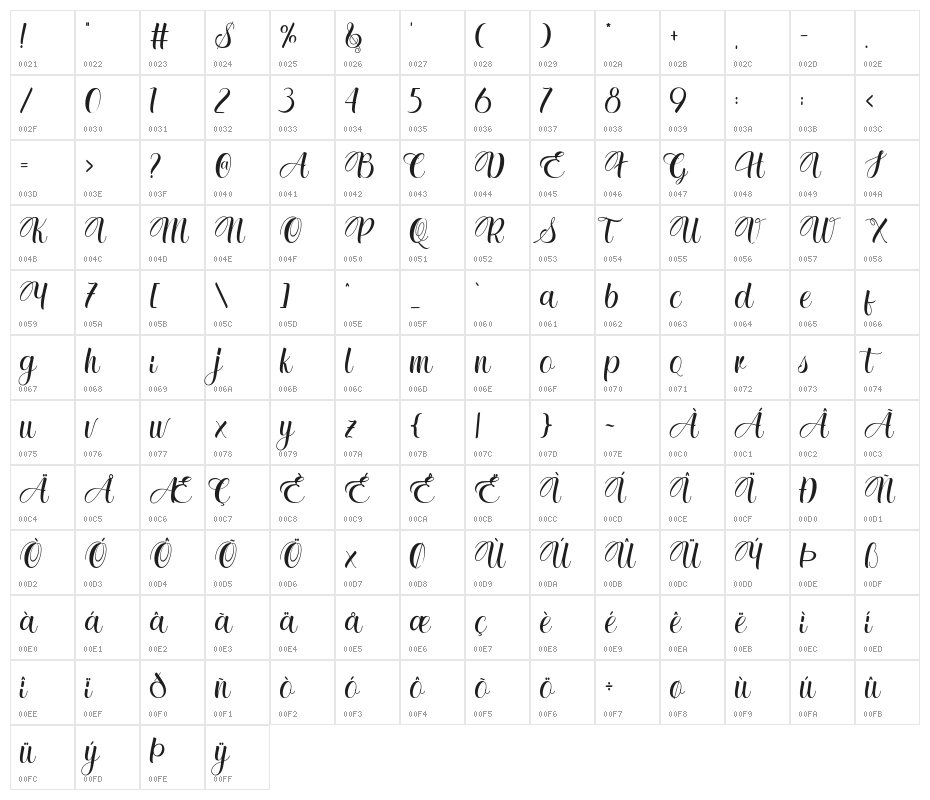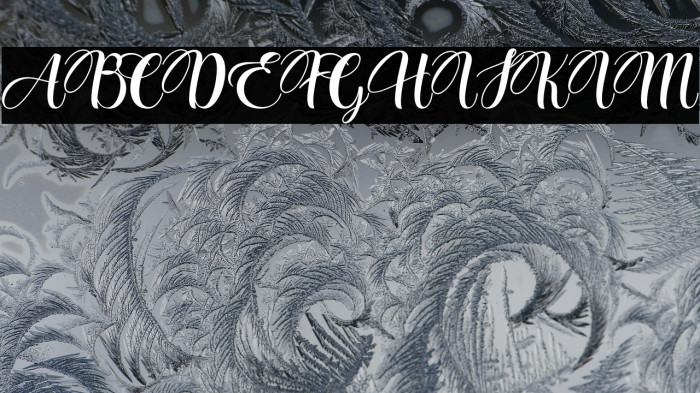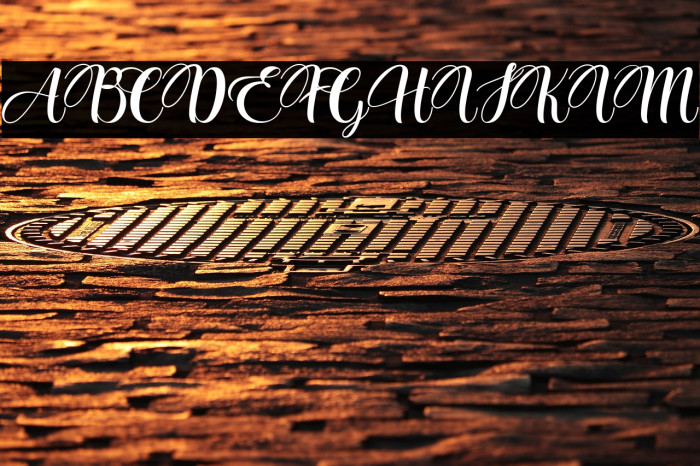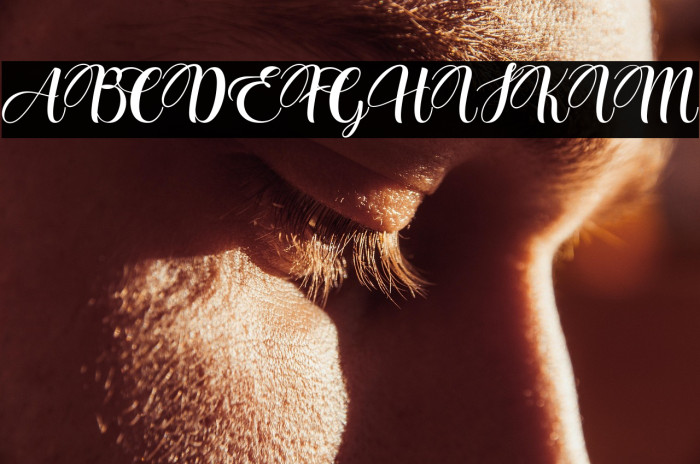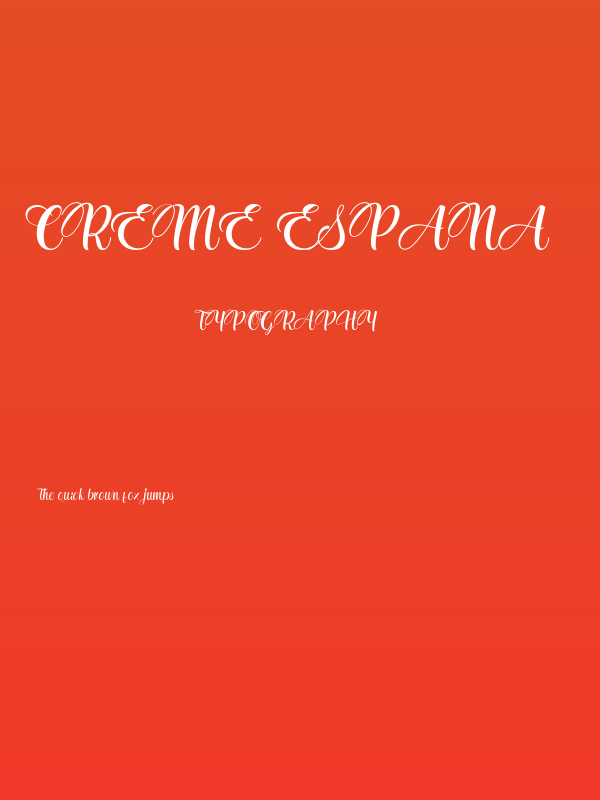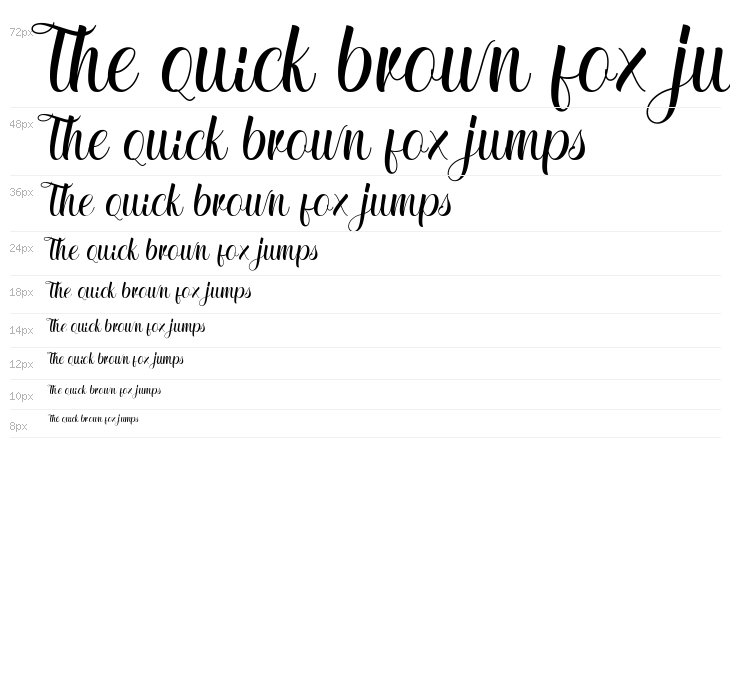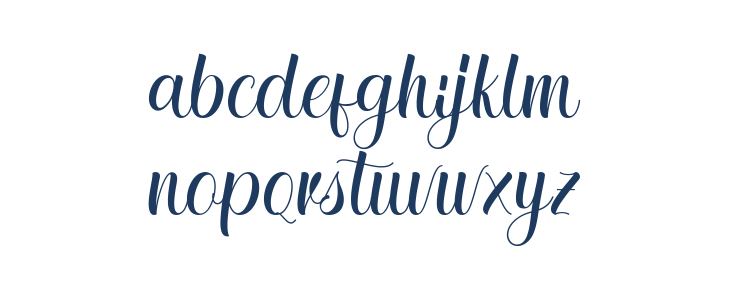
Creme Espana Font
Creme Espana Description
This elegant script font features a flowing, cursive style with intricate loops and swashes that give it a sophisticated and artistic appearance. The uppercase letters are particularly ornate, with flourishes that extend beyond the baseline and cap height, creating a sense of movement and grace. The lowercase letters maintain a consistent style, with smooth curves and a slightly condensed form that enhances readability. The numerals are designed to match the overall aesthetic, featuring similar curves and a balanced weight. Special characters are included, each crafted with the same attention to detail, making this font versatile for various design needs.
Overall StyleElegant, Artistic
Use CaseLogos, Invitations, Decorative text
Proposed ProjectsIdeal for wedding invitations, elegant branding, greeting cards, and luxury product packaging.